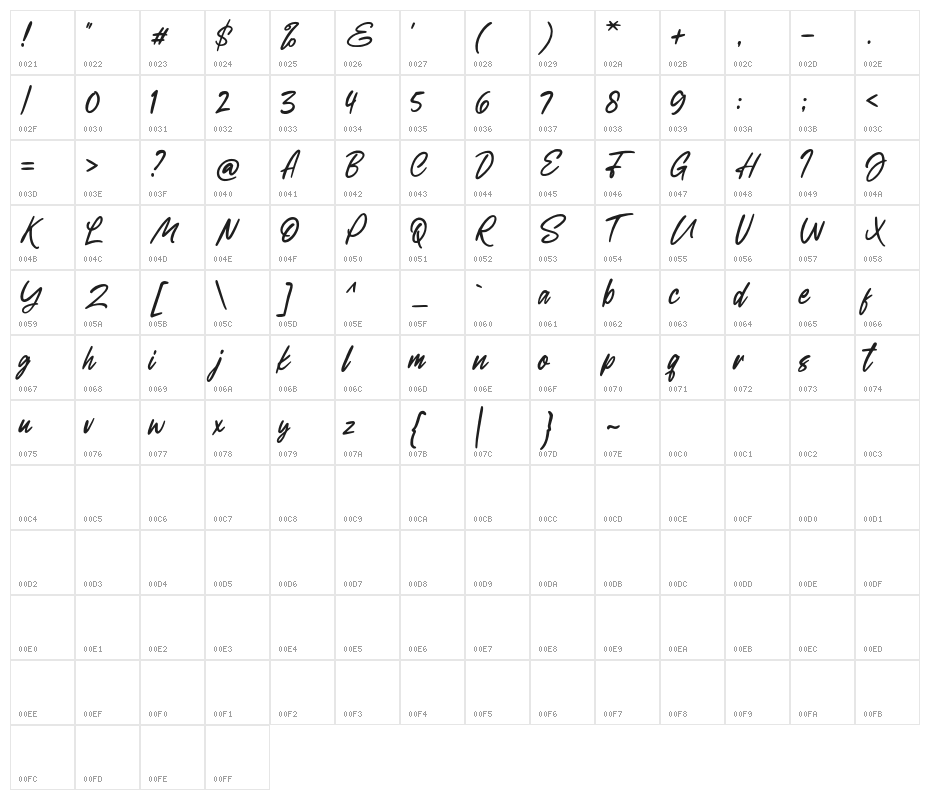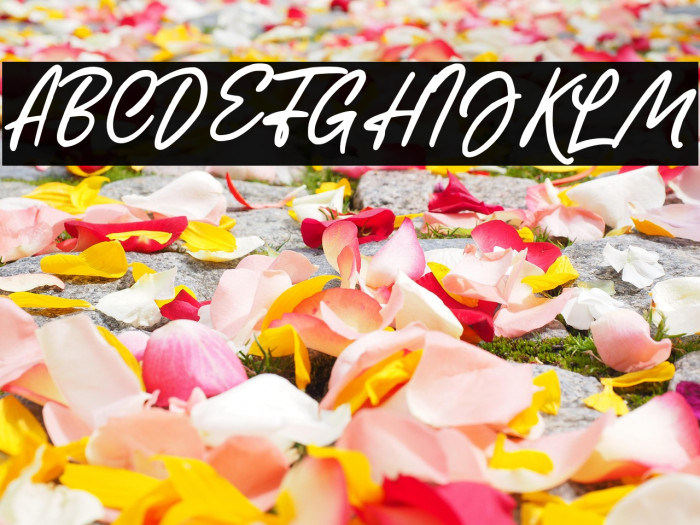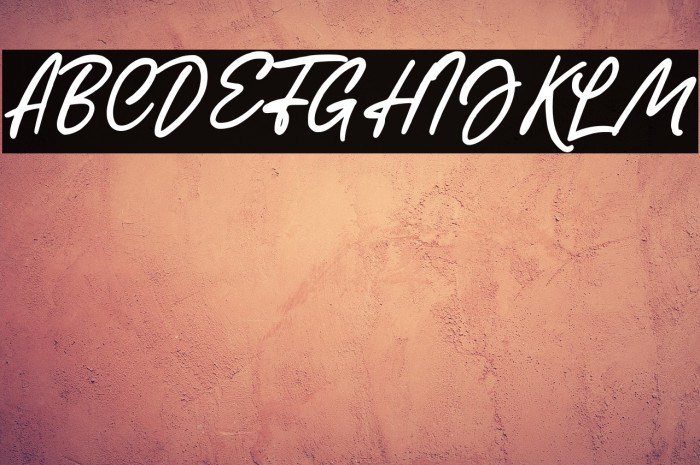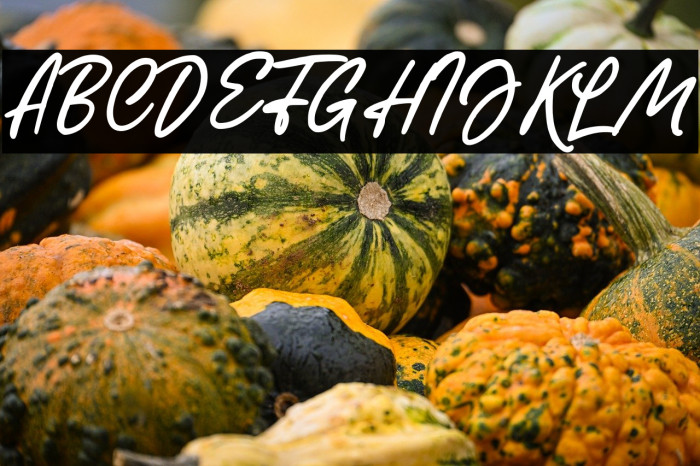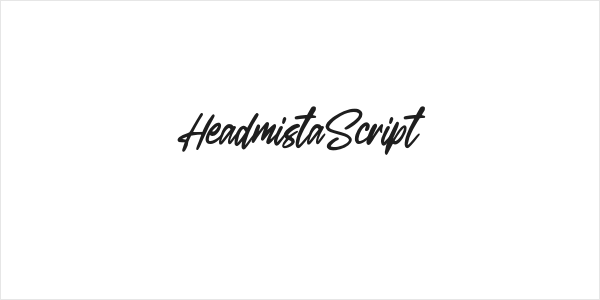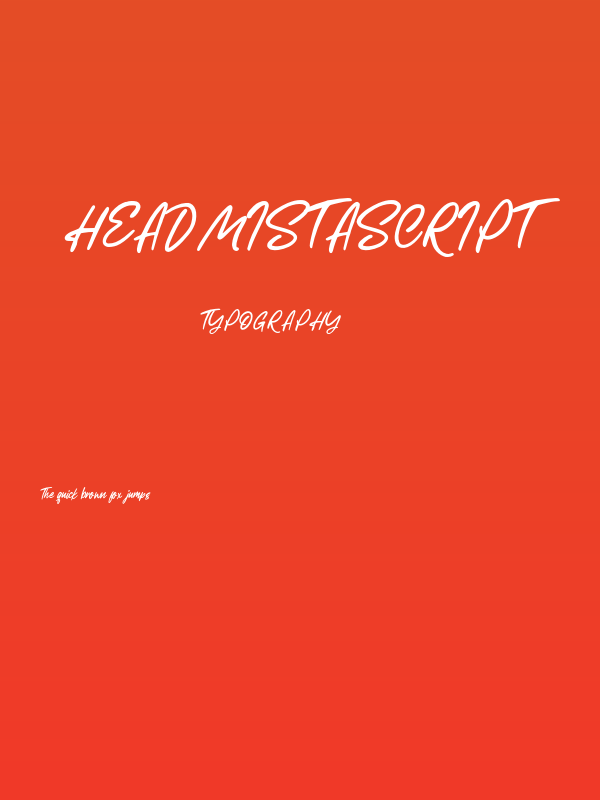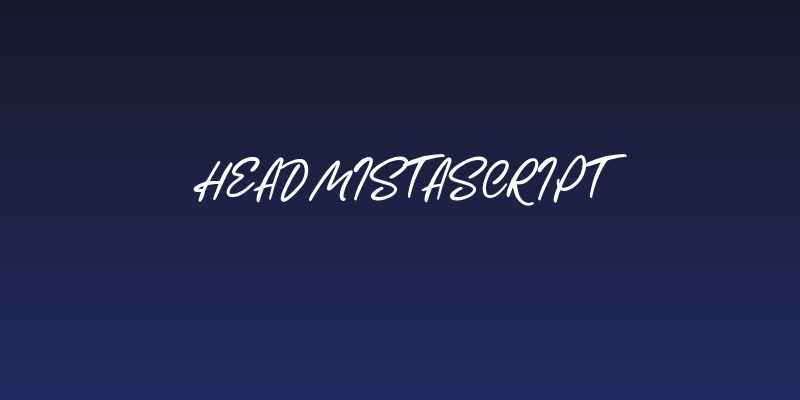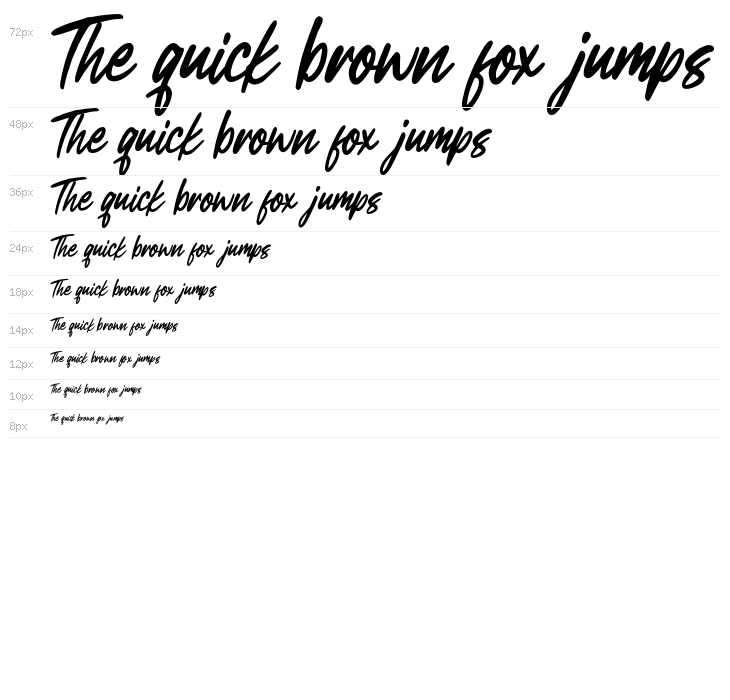
HeadmistaScript Font
HeadmistaScript Description
A flowing, cursive script font with a handwritten style, featuring smooth, connected letters and a casual, elegant appearance.
| Use Case | Logos, Headlines |
| Proposed Projects | Invitations, greeting cards, personal branding. |